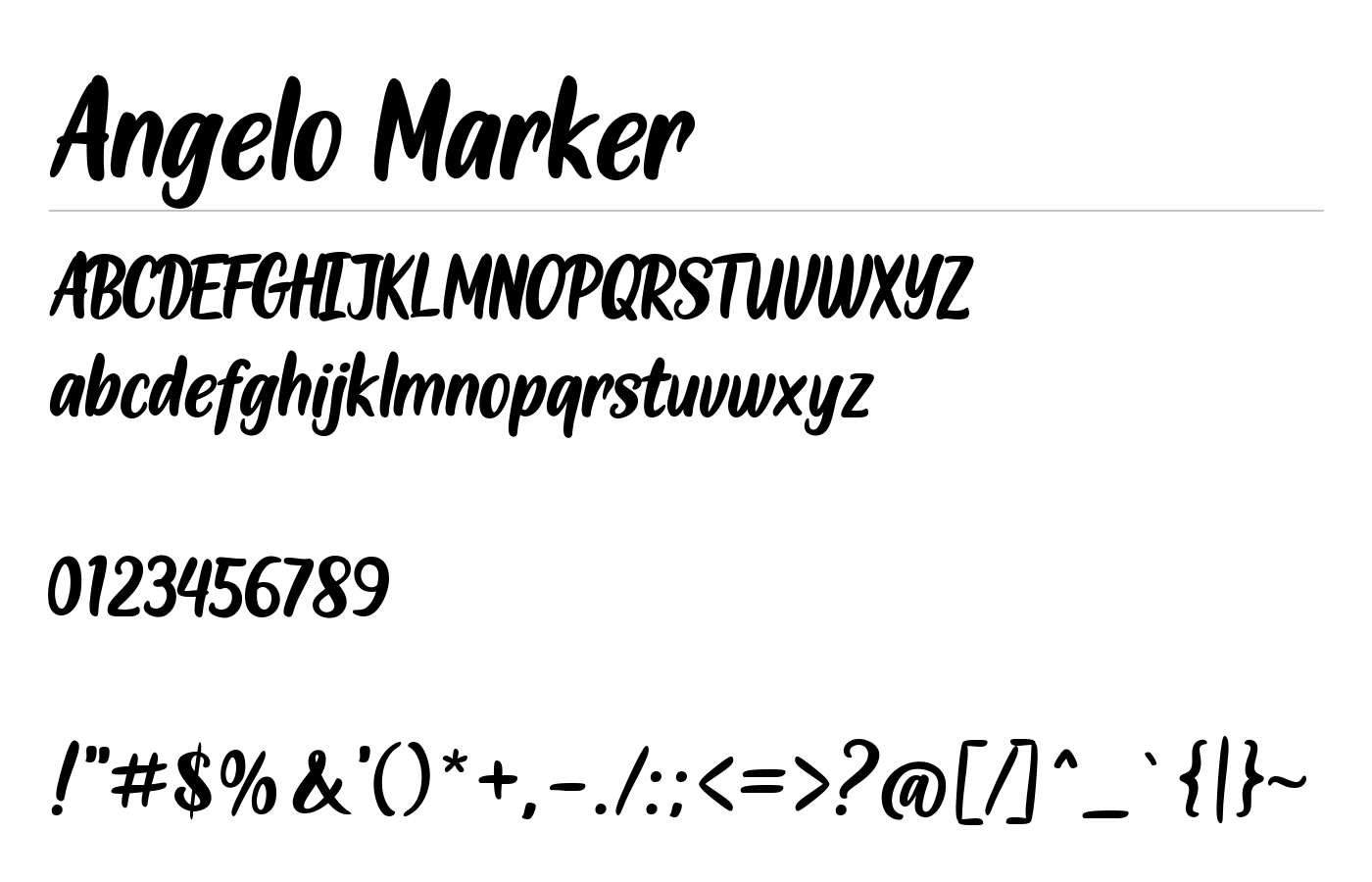
Angelo Marker is a lively sans serif font with a handwritten marker style that feels casual and friendly. Its medium weight, slightly condensed forms, and smooth, flowing strokes make it ideal for adding a personal, approachable touch to branding, invitations, and creative projects. This font works well in headlines and logos where a warm, informal vibe is needed without sacrificing readability.
Angelo Marker Font
About Angelo Marker Font
| Font family | Angelo Marker Font |
| Designer | deedeetype |